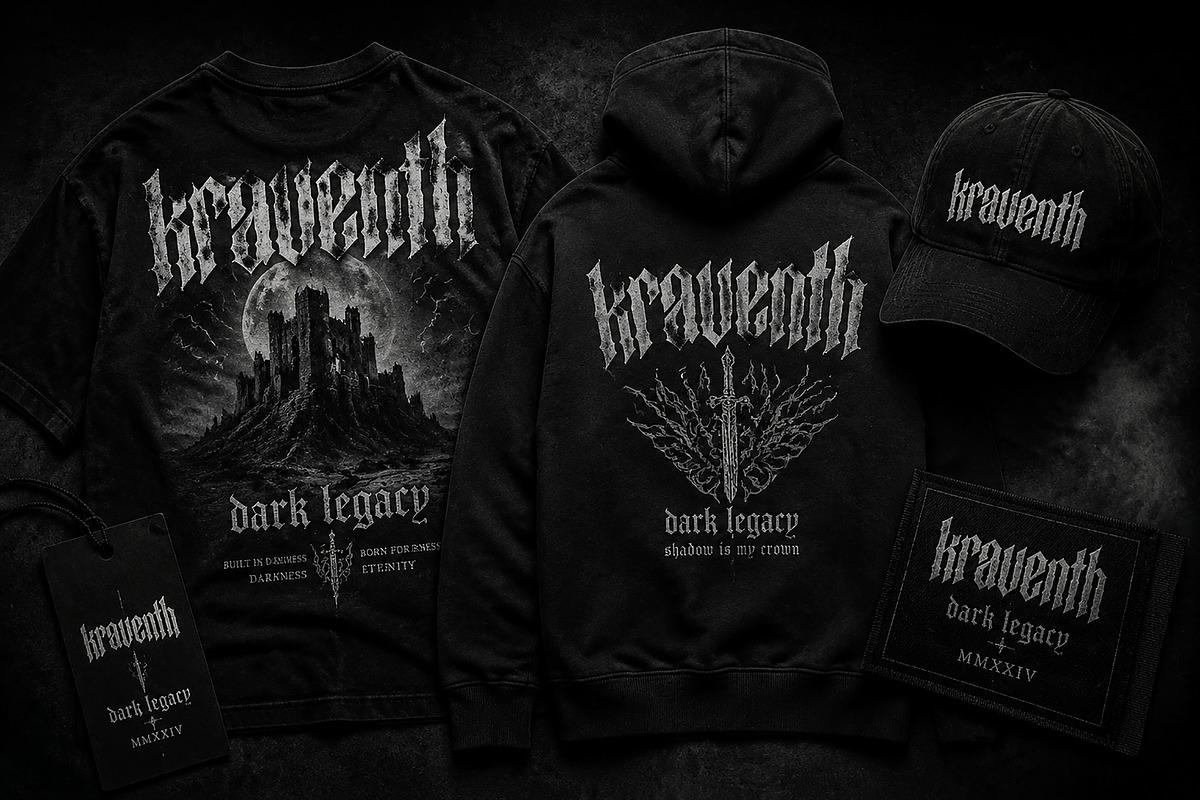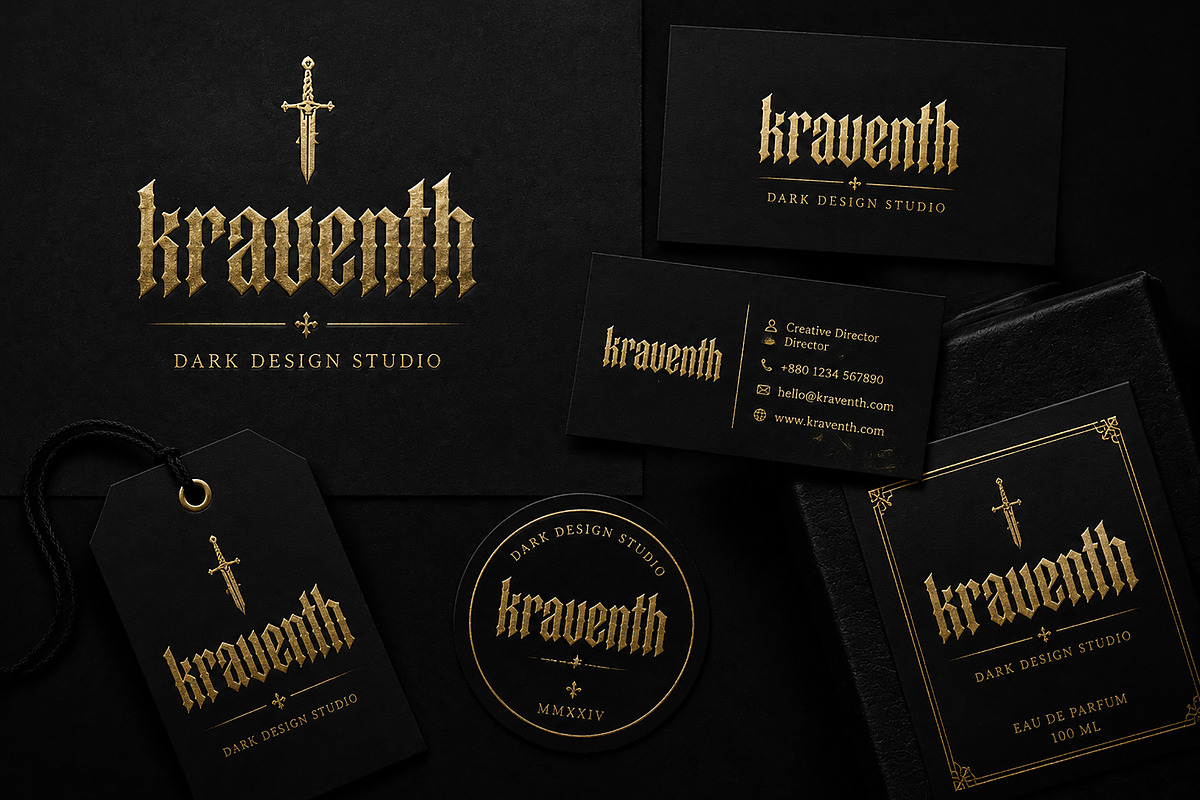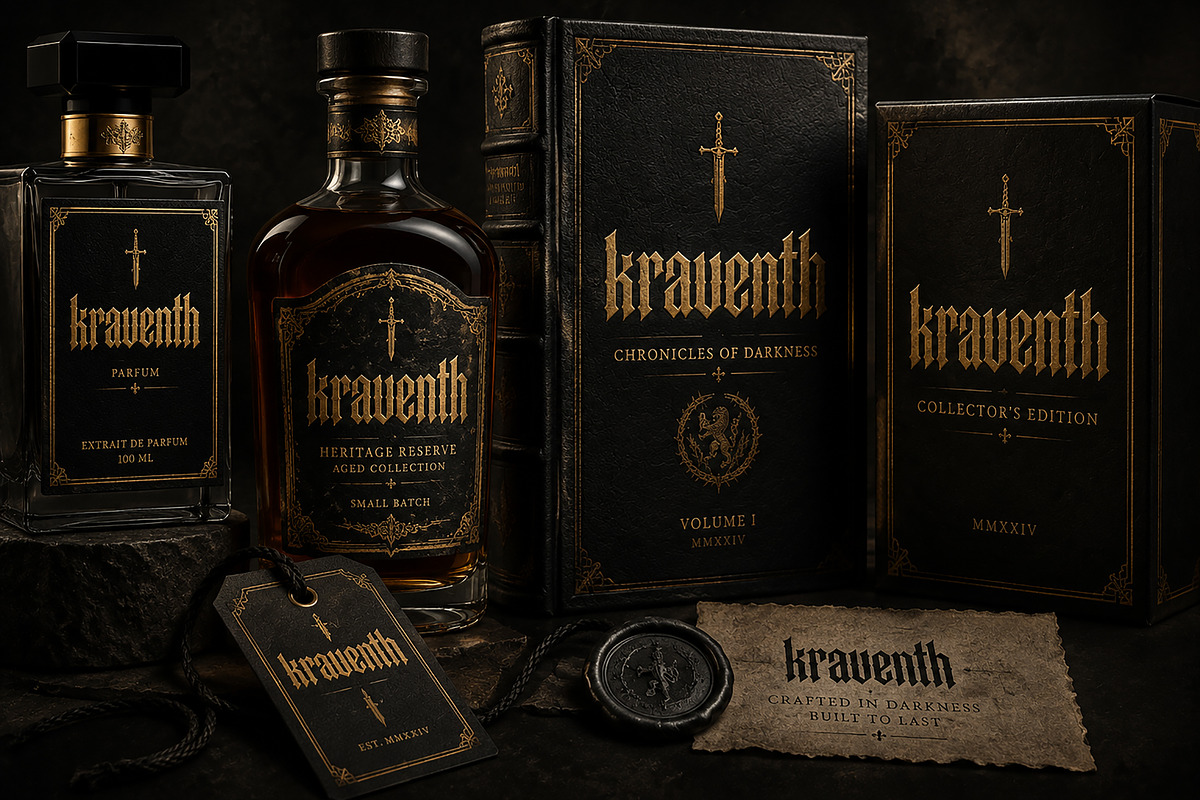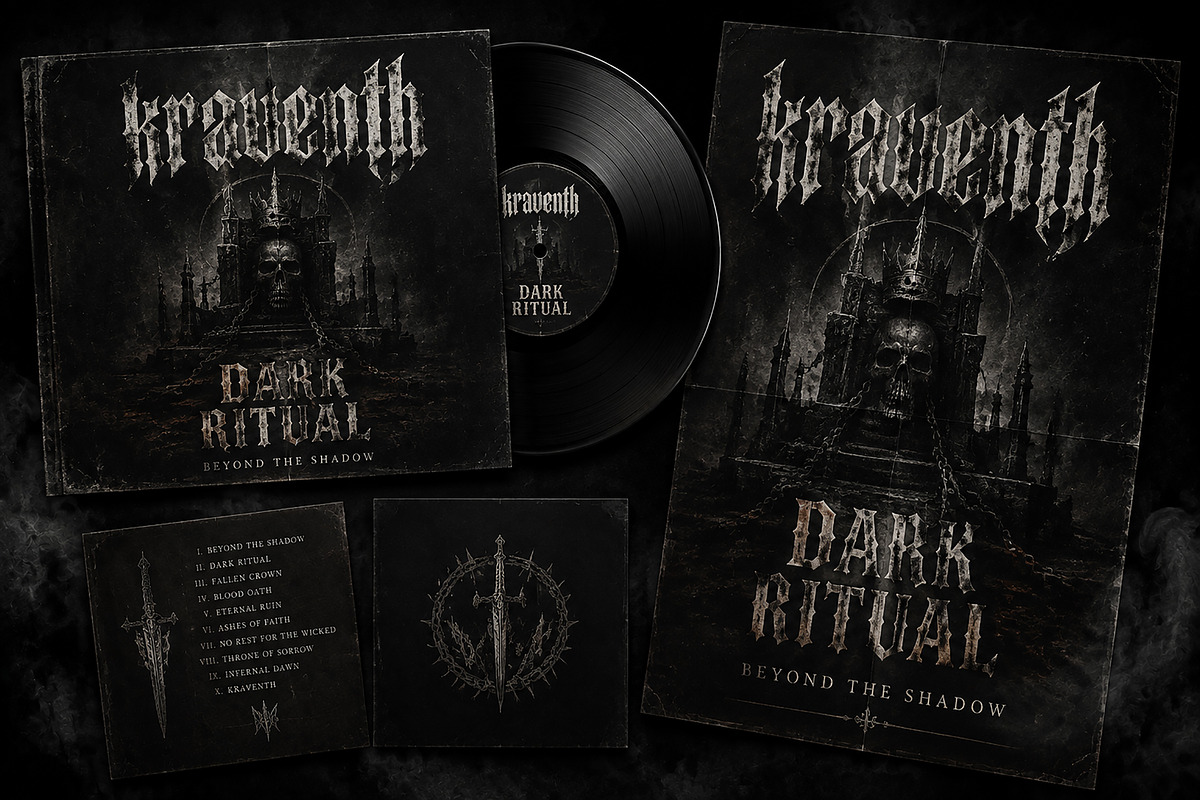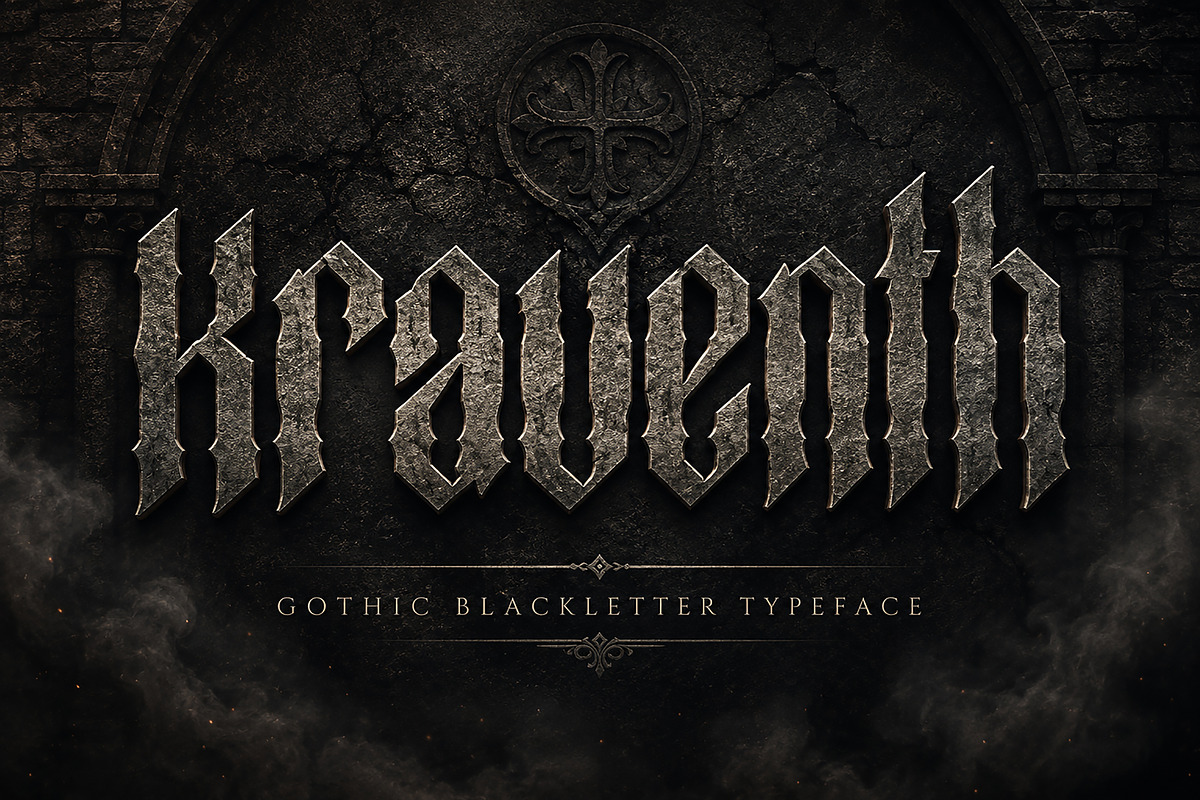
Kraventh – Dark Gothic Blackletter
Kraventh – Dark Gothic Blackletter Typeface
Kraventh is a powerful dark gothic blackletter typeface inspired by medieval aesthetics, heavy metal culture, fantasy worlds, and vintage dark branding. Designed with sharp edges, dramatic strokes, and a strong historical character, Kraventh brings a bold and mysterious atmosphere to any creative project.
Perfect for designers looking to create impactful visuals for fantasy titles, metal band artwork, streetwear branding, logo design, posters, book covers, packaging, and premium identity projects.
With its unique gothic personality and strong visual presence, Kraventh is crafted to make your designs stand out with a dark, legendary, and timeless feeling.
Gothic Logo Design
Heavy Metal Branding
Band Merchandise
Streetwear & Apparel Design
Fantasy Movie Titles
Game Logo Design
Album Covers
Poster Design
Vintage Labels
Tattoo Inspired Artwork
Dark Luxury Branding
✔ Unique Gothic Blackletter Style
✔ Strong Medieval Inspired Character
✔ Perfect for Display Typography
✔ High Impact Logo Appearance
✔ Suitable for Print & Digital Projects
✔ Professional Typeface Design